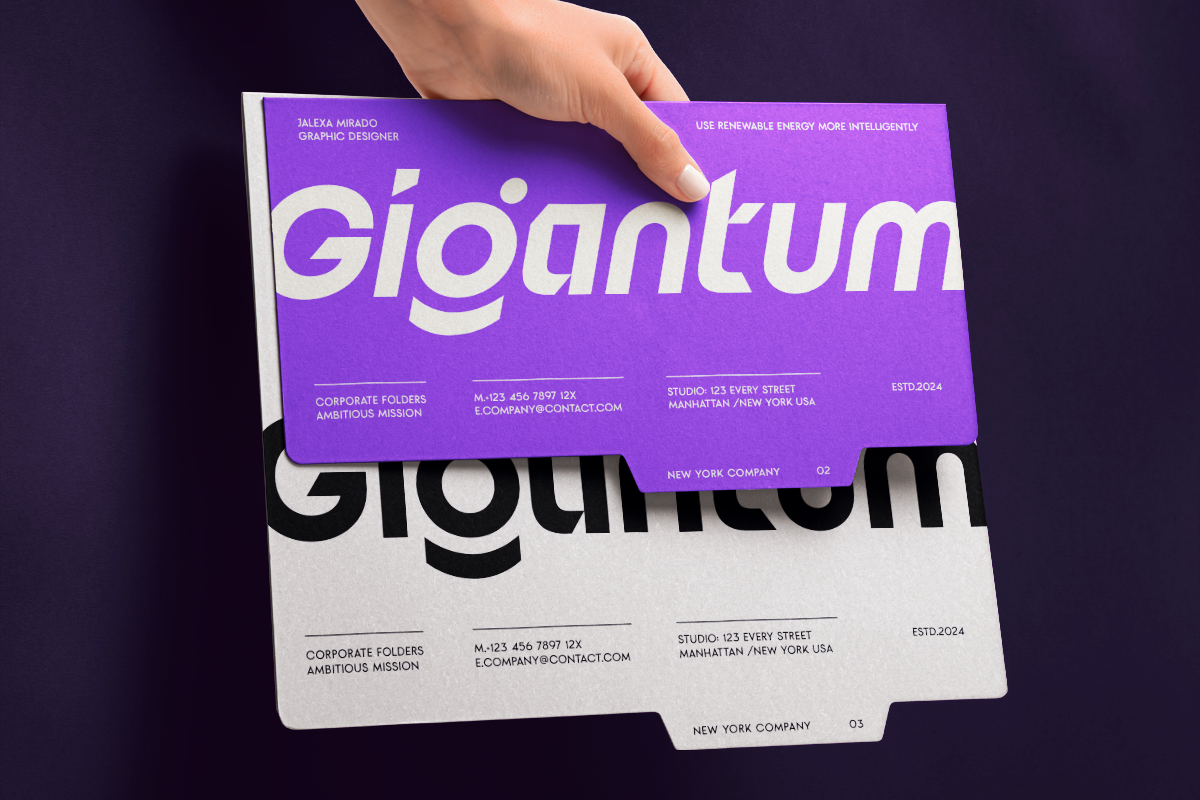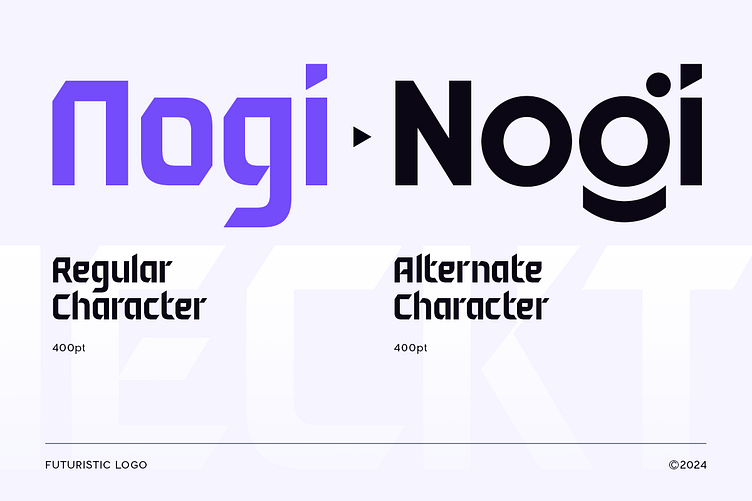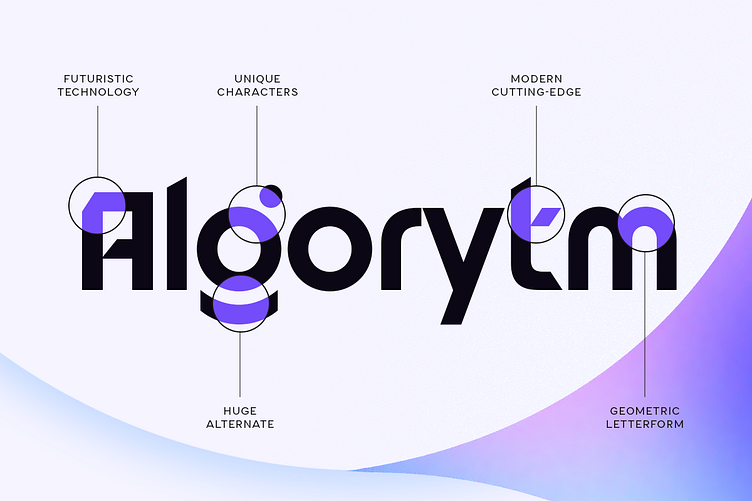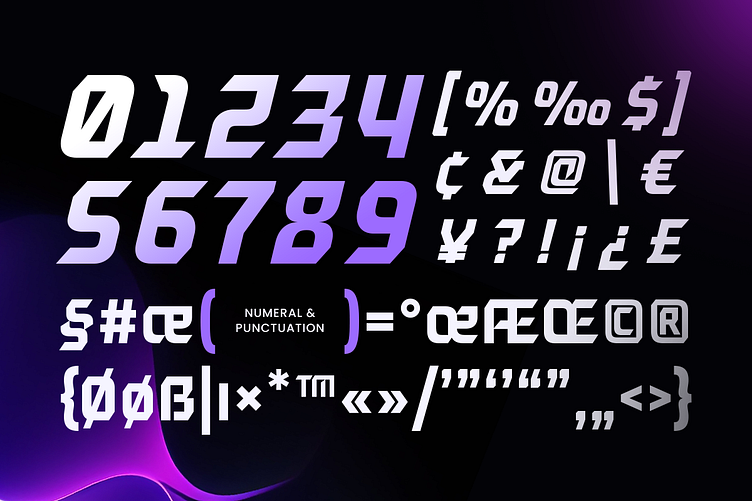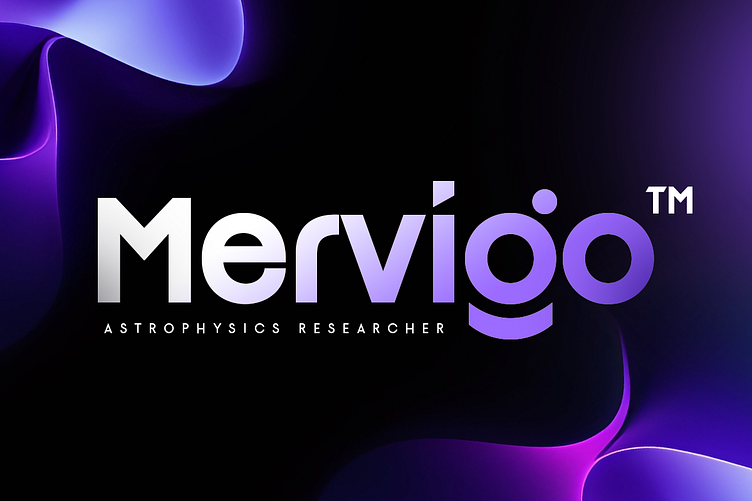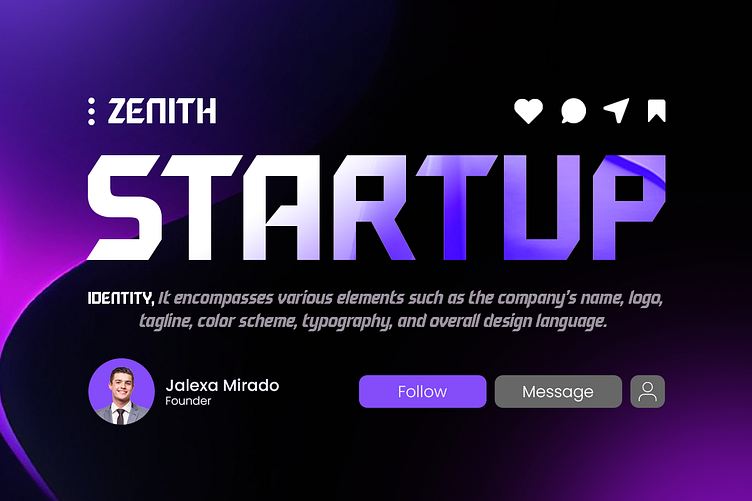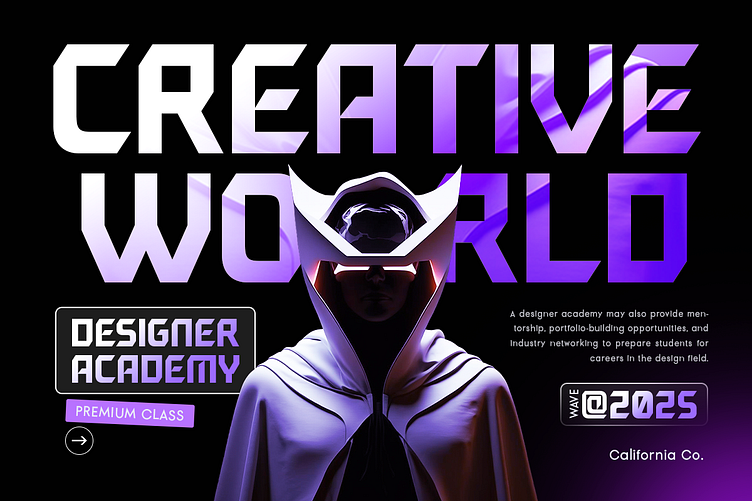
Necktar – Futuristic Logo Font for Bold, Next-Gen Branding 🤖
Necktar – Futuristic Logo Font
Necktar didn’t happen overnight. It started with a bunch of late nights 😵💫, bad coffee ☕, and an unhealthy obsession with sci-fi movies🚀.
We wanted a font that felt sharp, clean, and faster than today. Something you could throw on a logo and instantly make people feel like you’re three steps ahead of everyone else 🏎️.
No confusing curves. No soft whispers. Just bold, tech-driven letterforms that actually look like they belong in a future worth living in.
Necktar is for you if your project needs to hit different — whether it’s a tech startup, gaming team, space-themed app 🛰️, futuristic UI, or even that crazy idea you’re cooking up at 2 AM.
It’s punchy. It’s confident. It makes brands look like they’ve already landed on Mars while everyone else is still stuck trying to launch a website 🐢.
Where Necktar works best:
✅ Logos that need to slap
✅ Apps that feel like they’re from 2099.
✅ Gaming brands that look like they came to win, not participate.
✅ Sci-fi posters, digital products, smart tech ads.
How Necktar feels to use:
It’s like plugging a neon cable straight into your project’s veins. You’ll feel it the moment you type the first letter.